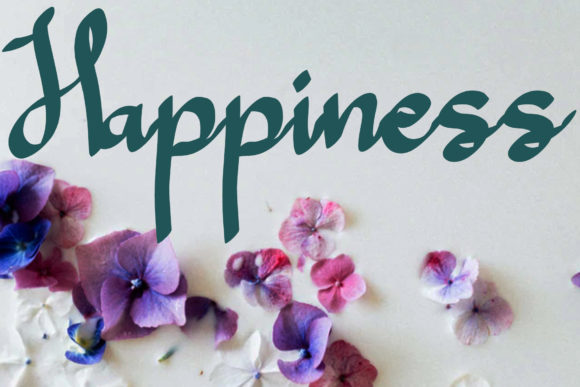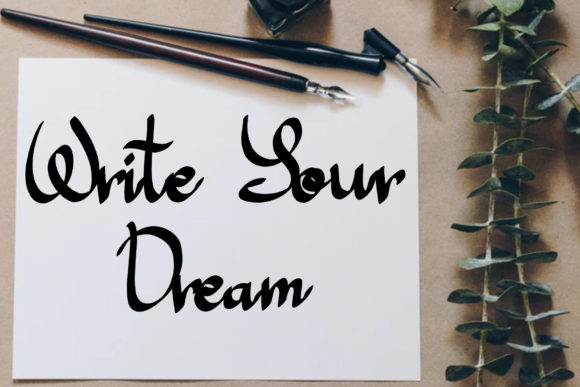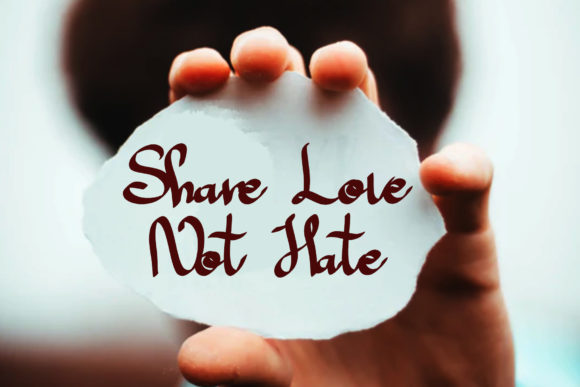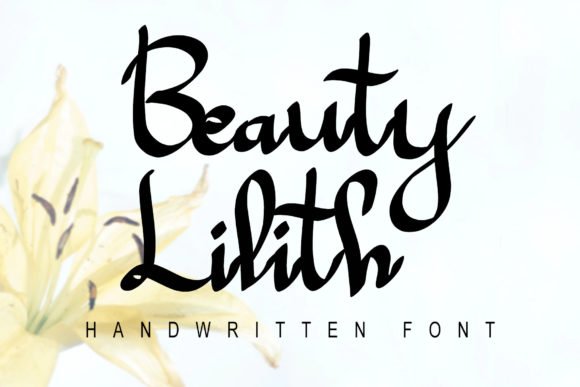
Introduction to Beauty Lilith Font
Beauty Lilith is a sweet and friendly handwritten font.
Key Features of Beauty Lilith Font
Why Choose Beauty Lilith Font?
Beauty Lilith Font offers exceptional quality and versatility, making it a valuable addition to your design toolkit. Whether you’re creating for personal projects or commercial use, Beauty Lilith Font delivers professional results.